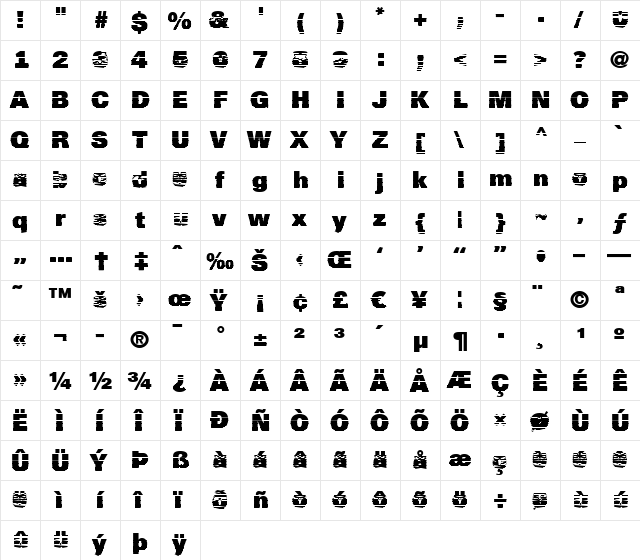
a_ReportSansCmbStr Regular
| Designer | W.Chufarofsky & M.Slutsker |
Design Context for a_ReportSansCmbStr Typeface
a_ReportSansCmbStr offers clean, dependable letterforms without strong stylistic allegiance, making it a practical choice for designers who need flexibility.